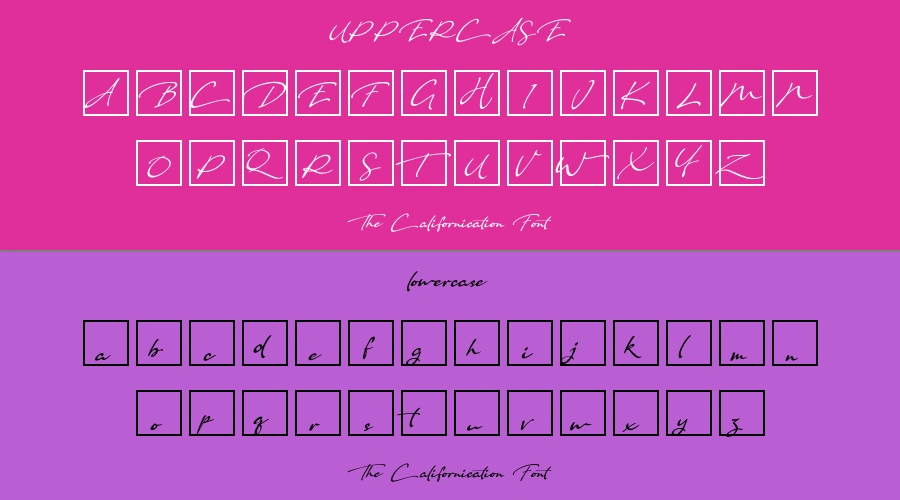
About The Californication Font
The Californication Font stands out for its distinctive combination of harmonious shapes and originality. Ideal for branding projects, it provides the longevity and market relevance that professional projects demand. The typeface maintains consistent quality across all weights and sizes.
Key features include refined balanced proportions and practical text figures, enhancing typographic expression. In running text applications, The Californication Font demonstrates exceptional weight distribution. The serif length and lifestyle connection contribute to its distinctive character and professional appeal.